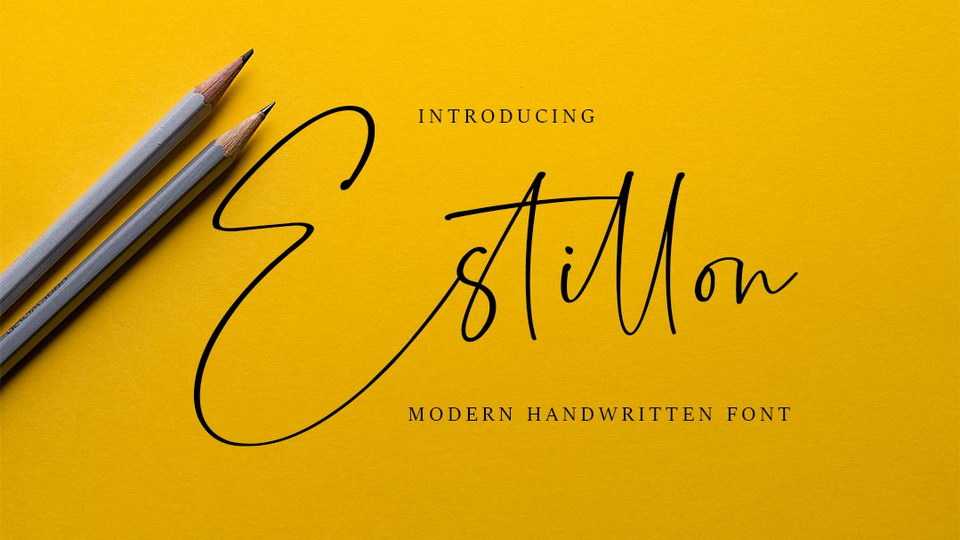
Download Estillon font, stylish handwritten typeface with a natural signature look. Estillon is very usable for personal branding, business card, social media and craft projects.